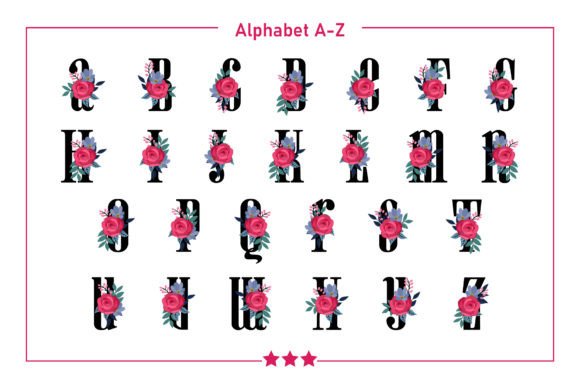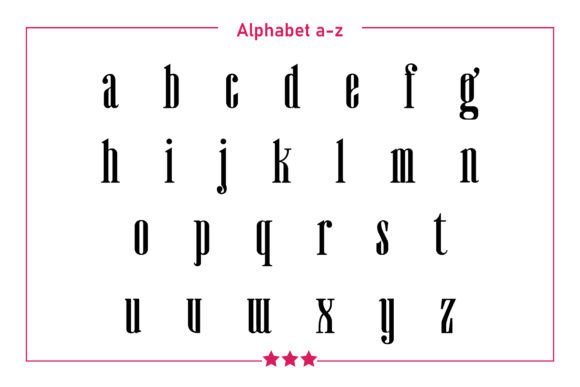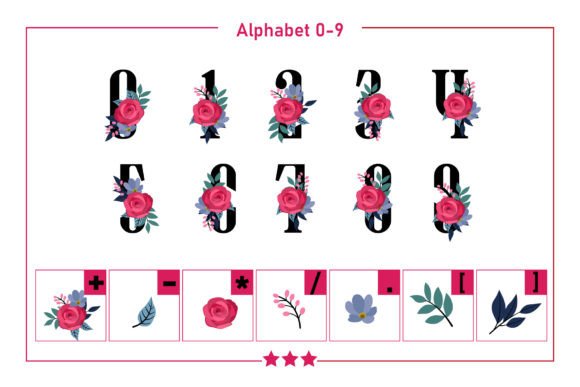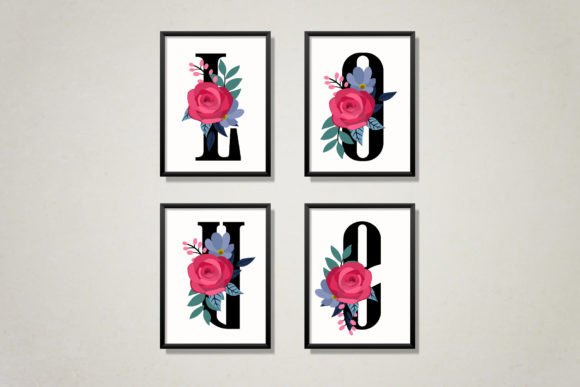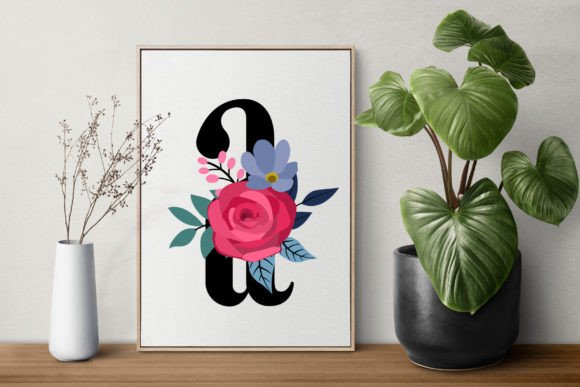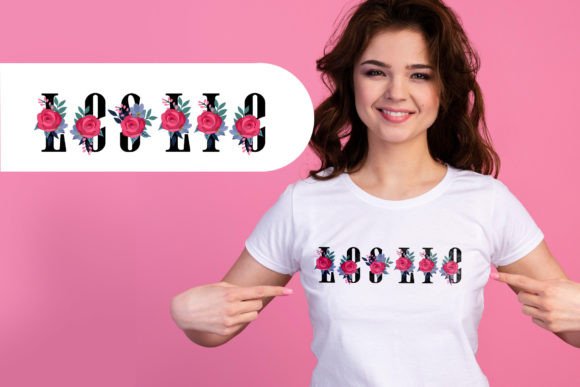
Introduction to Floral Monogram Font
Floral Monogram is a meticulously designed color font.
and bright and beautiful Fall in love with its authentic feel and use it to create gorgeous invitations, beautiful stationary art, eye-catching social media posts, and cute greeting cards.
Key Features of Floral Monogram Font
Why Choose Floral Monogram Font?
Floral Monogram Font offers exceptional quality and versatility, making it a valuable addition to your design toolkit. Whether you’re creating for personal projects or commercial use, Floral Monogram Font delivers professional results.